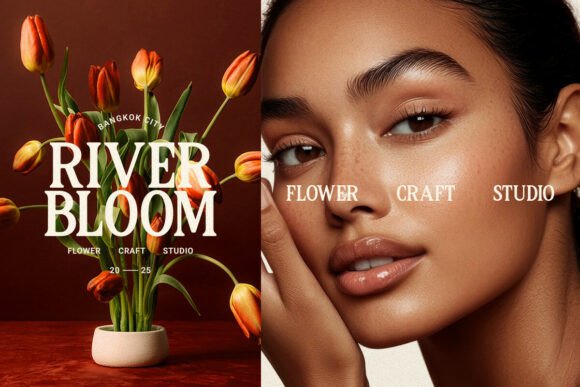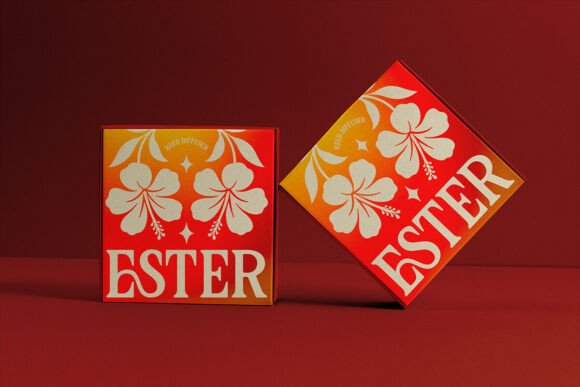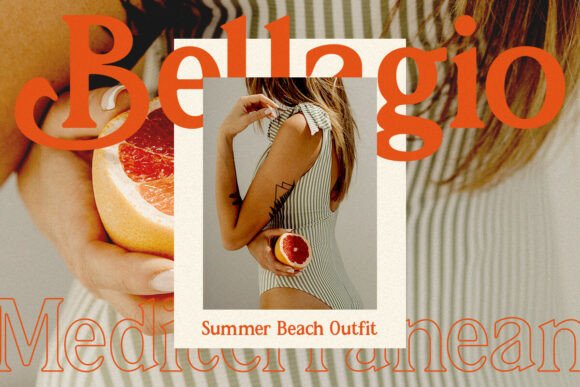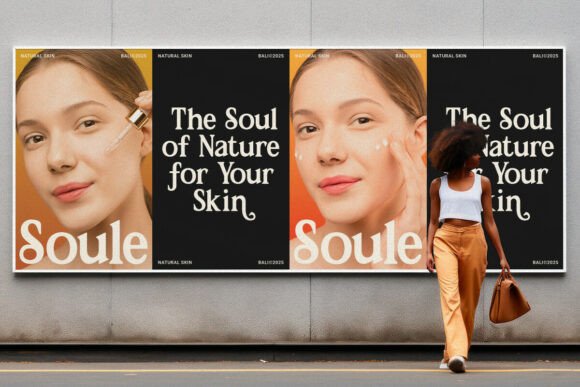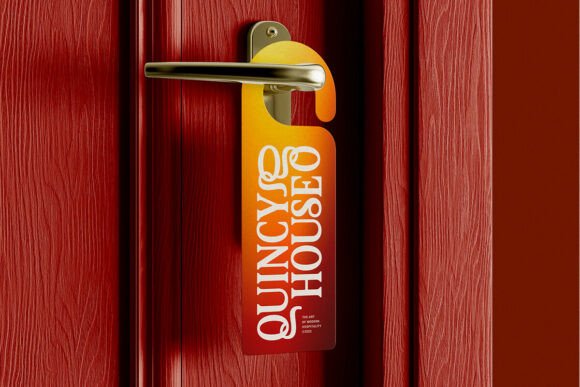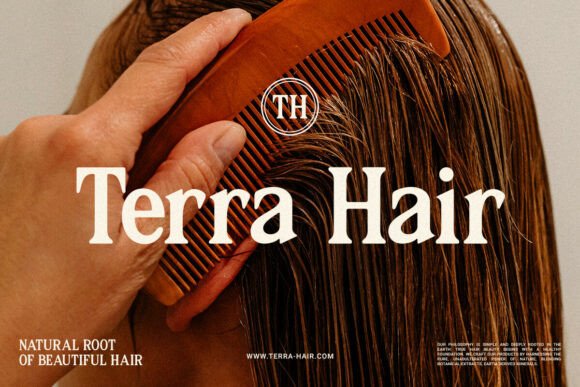
Introduction to Majorna Font
Remember that moment when you’re brainstorming ideas for a new creative project, and you need the perfect font to convey elegance and sophistication? You’ve spent hours browsing through design resources, searching for the ideal combination of style and refinement. That’s when you stumble upon the Majorna Font, a true gem that elevates your design to the next level.
As a designer, you know how crucial the right font can be in setting the tone for your project. That’s why Majorna Font is a valuable asset in your design arsenal. With its blend of vintage charm and modern sophistication, this elegant serif typeface is perfect for high-end branding, editorial design, invitations, packaging, and luxury logos.
Key Features of Majorna Font
- Unique, hand-drawn design with a transparent background, making it ideal for creative projects that require a personal touch.
- High-quality font with a wide range of characters, including uppercase and lowercase letters, numbers, and punctuation marks.
- Designed to be versatile, making it perfect for a variety of creative projects, from logos and branding to digital art and typography.
- Includes a full character set, with over 200 glyphs, making it a comprehensive design resource.
Honest Review: Majorna Font
I recently stumbled upon the Majorna Font while searching for a free download to use in a creative project. As a designer, I was excited to give it a try and see if it would meet my expectations. Here’s my honest review:
- ✨ High quality design: The Majorna Font has a clean and modern aesthetic that makes it perfect for a variety of creative projects.
- ✨ Versatile: It can be used for both digital and print designs, making it a great addition to any design resource collection.
- ✨ Transparent background: This feature is a game-changer for designers who want to create seamless designs with a transparent background.
- ⚠️ Not ideal for large text: The font may not be the best choice for large text sizes, as it can become difficult to read.
Overall, I was impressed with the Majorna Font and would recommend it to designers who are looking for a high-quality, free download for their creative projects. With its transparent background and versatile design, it’s a great addition to any design resource collection.
Tips for Getting the Most Out of Majorna Font
To get the most out of the Majorna Font, experiment with different font sizes, colors, and styles. Use the font with a transparent background to create visually appealing designs. Also, pair the font with high-quality images to create stunning visual effects.
The Majorna Font is ideal for creative projects such as logos, brochures, and business cards. You can also use the font for presentations, documents, and social media graphics. The font’s high quality and transparent background feature make it a versatile design resource for any creative project.